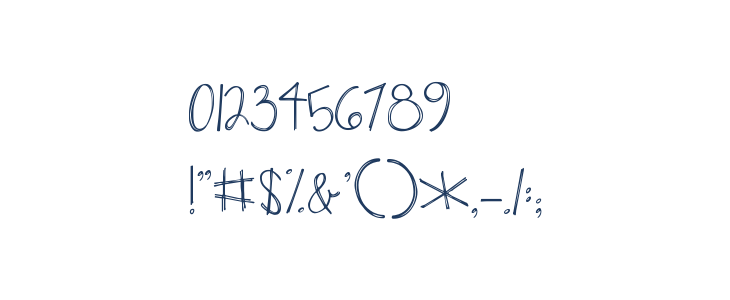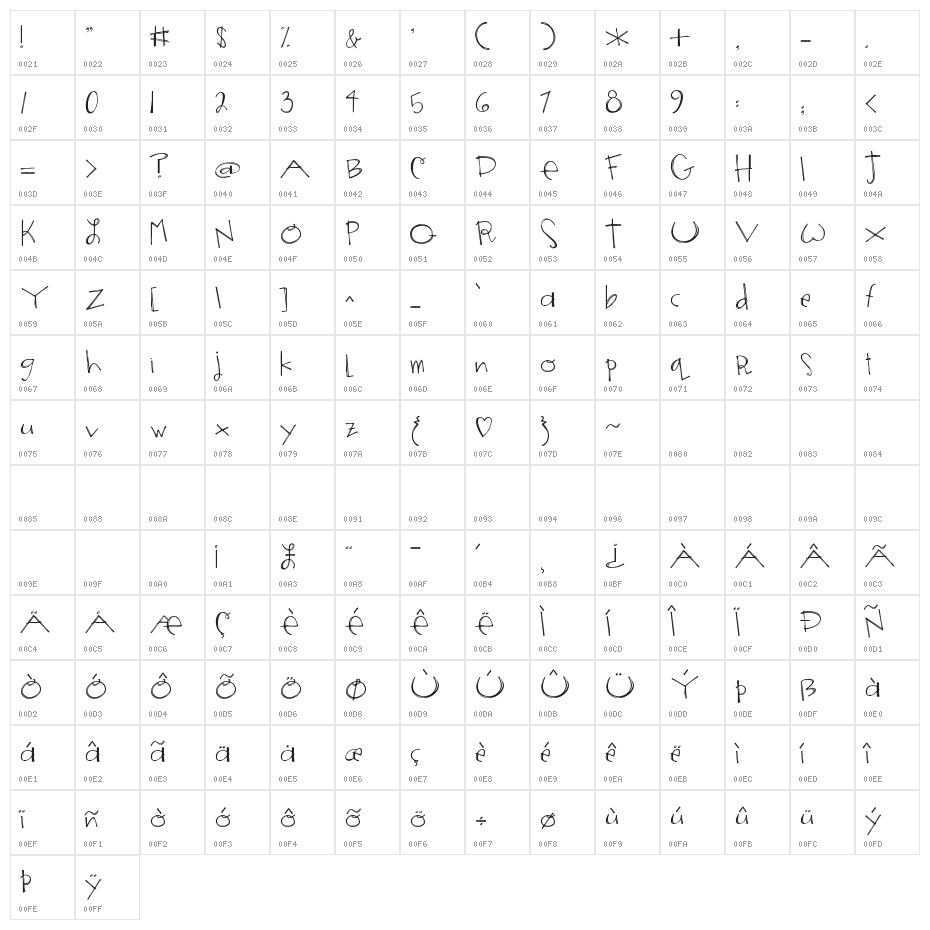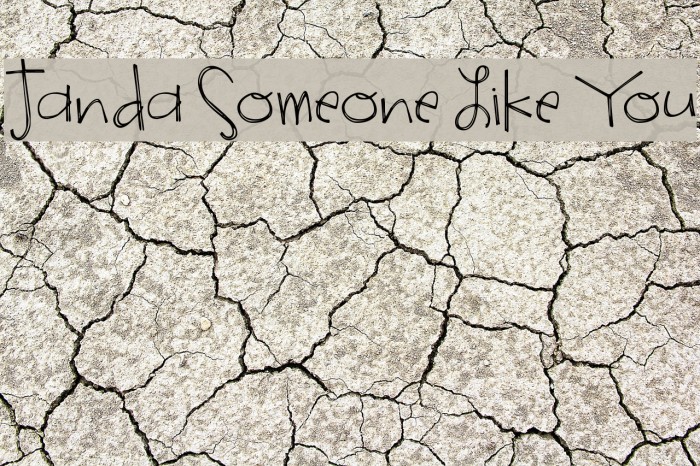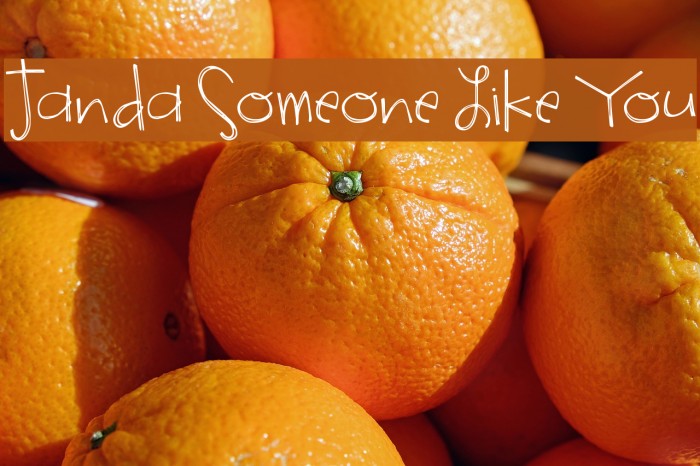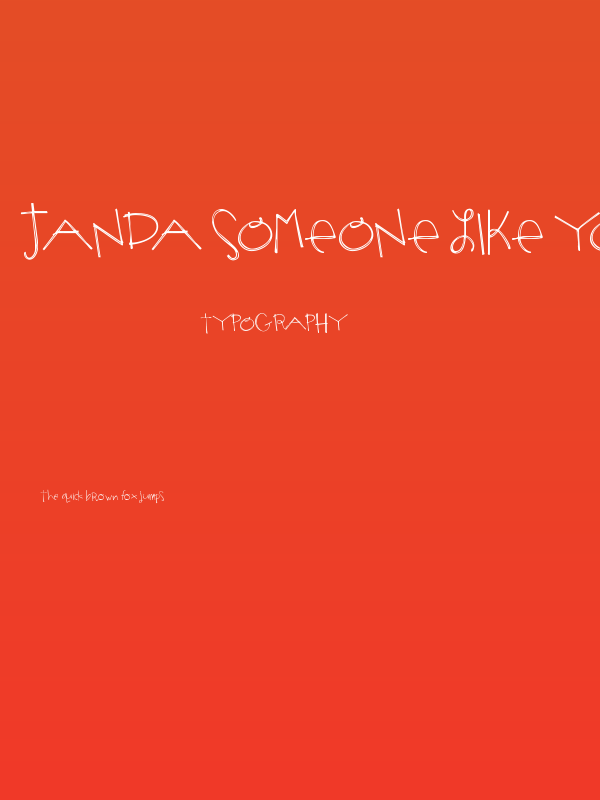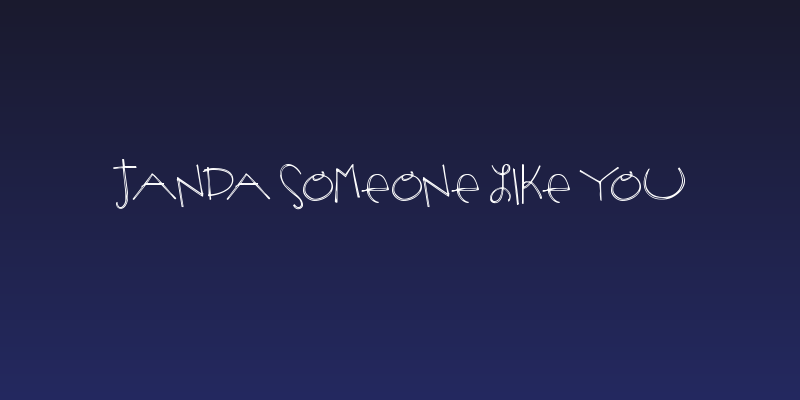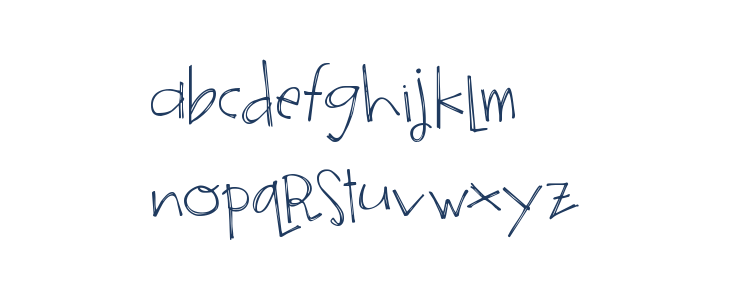
Janda Someone Like You Font
Janda Someone Like You Description
This playful and whimsical font features a hand-drawn aesthetic with irregular strokes and a casual, informal style. The characters are slightly tilted and vary in size, giving a lively and dynamic appearance. The uppercase letters have a quirky charm, while the lowercase letters maintain a consistent flow. The numbers are uniquely styled, matching the overall playful theme. Special characters are creatively designed, adding to the font's distinctive personality. This font is perfect for projects that require a fun and approachable look.
| Overall Style | Whimsical |
| Proposed Projects | Ideal for children's books, greeting cards, playful branding, and creative posters. |